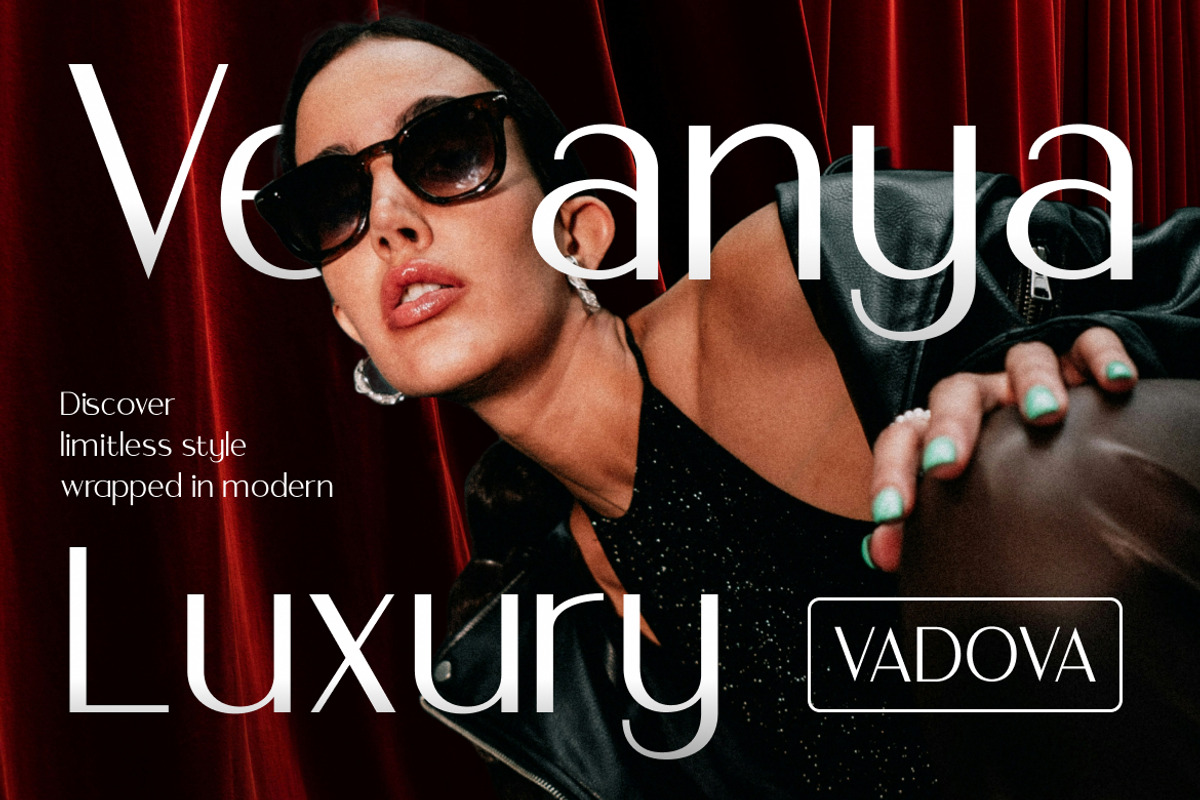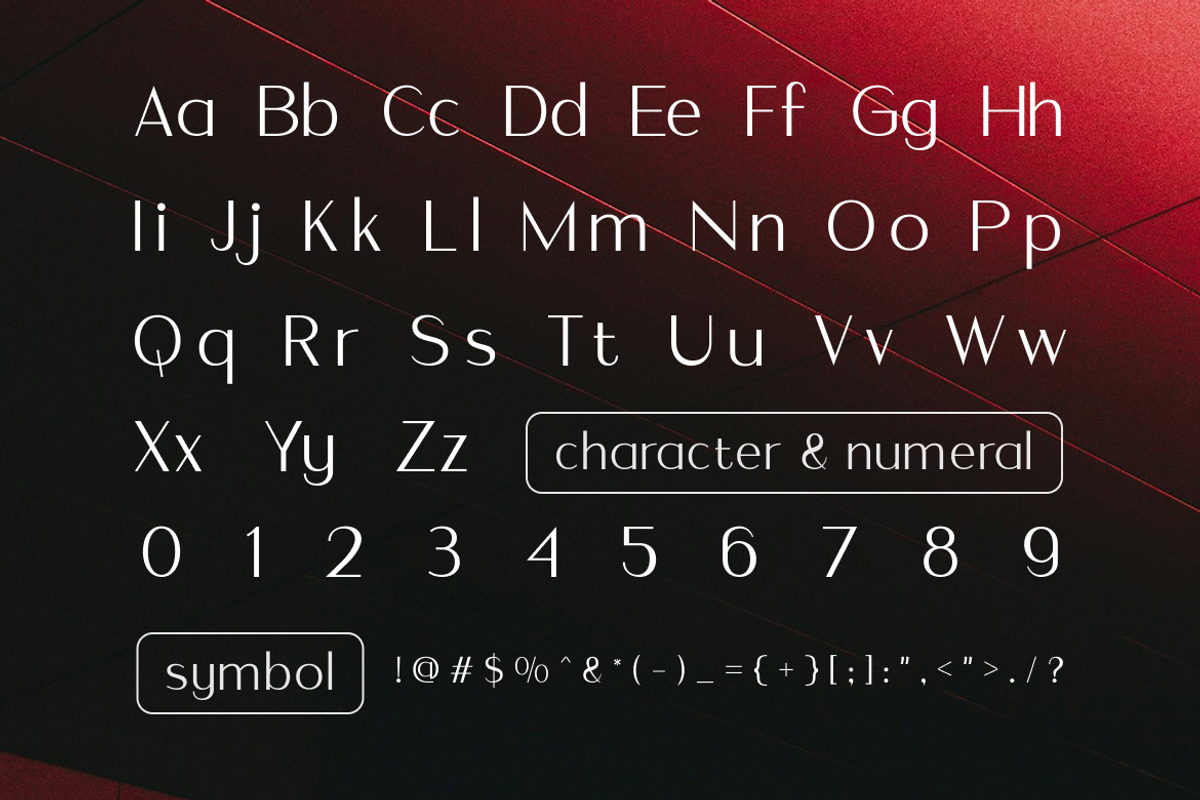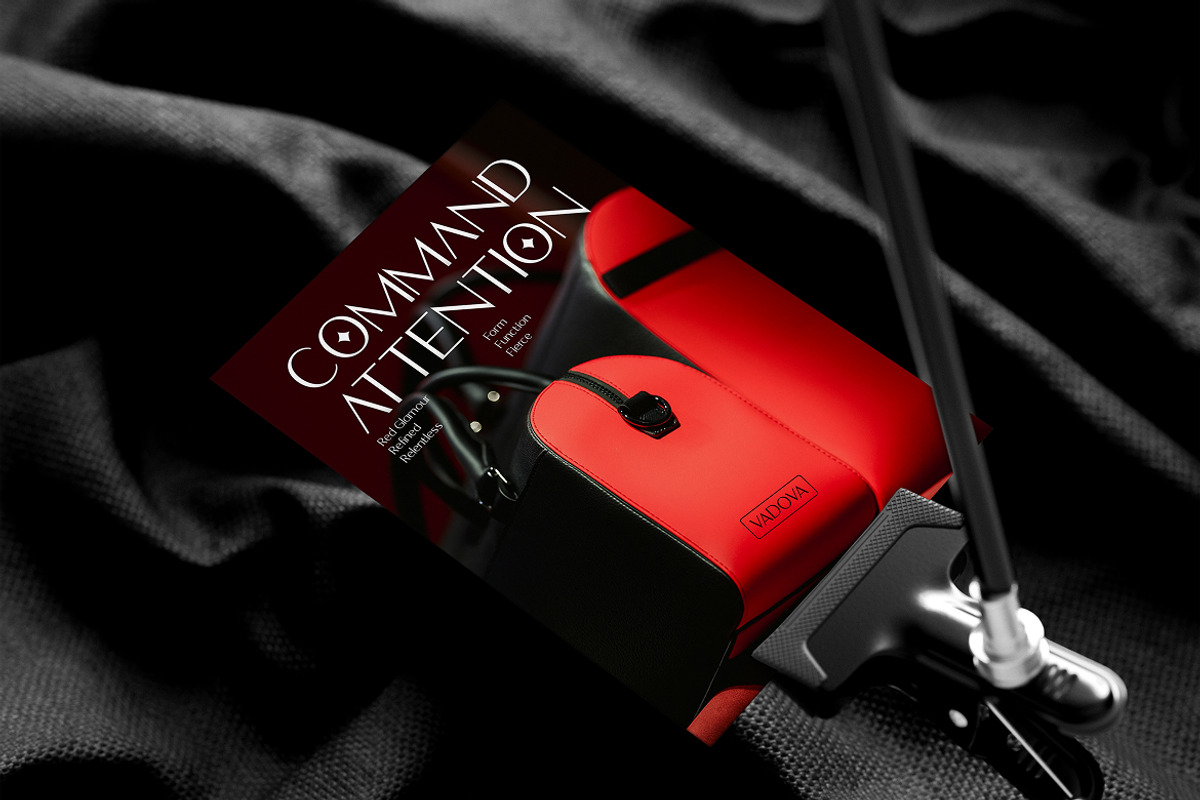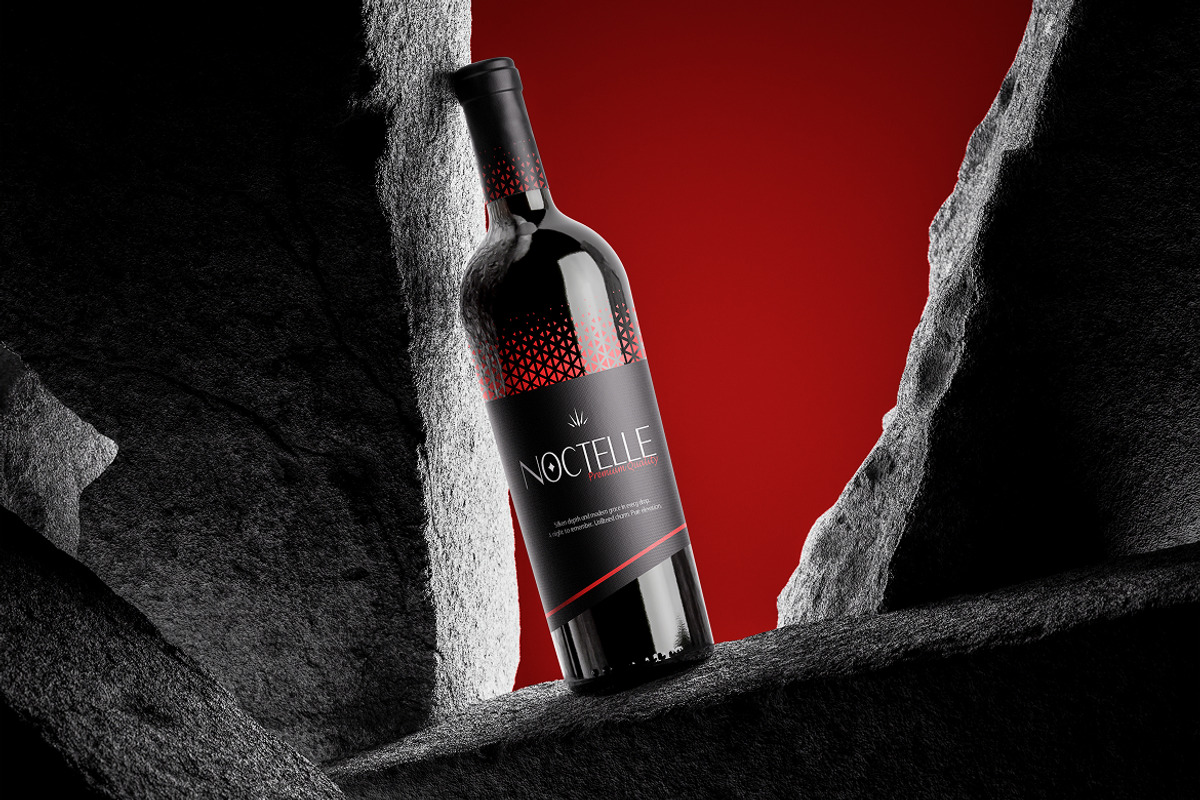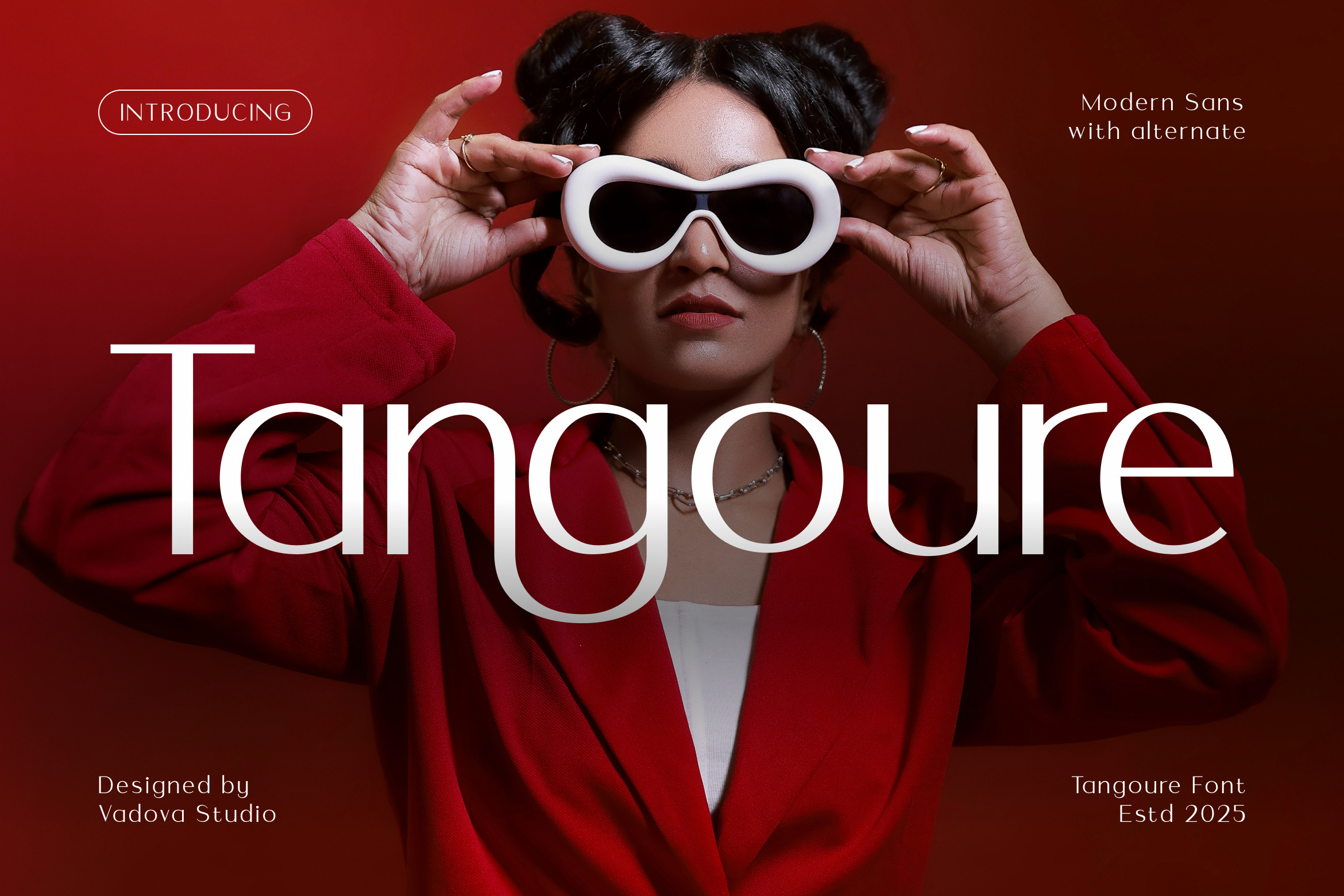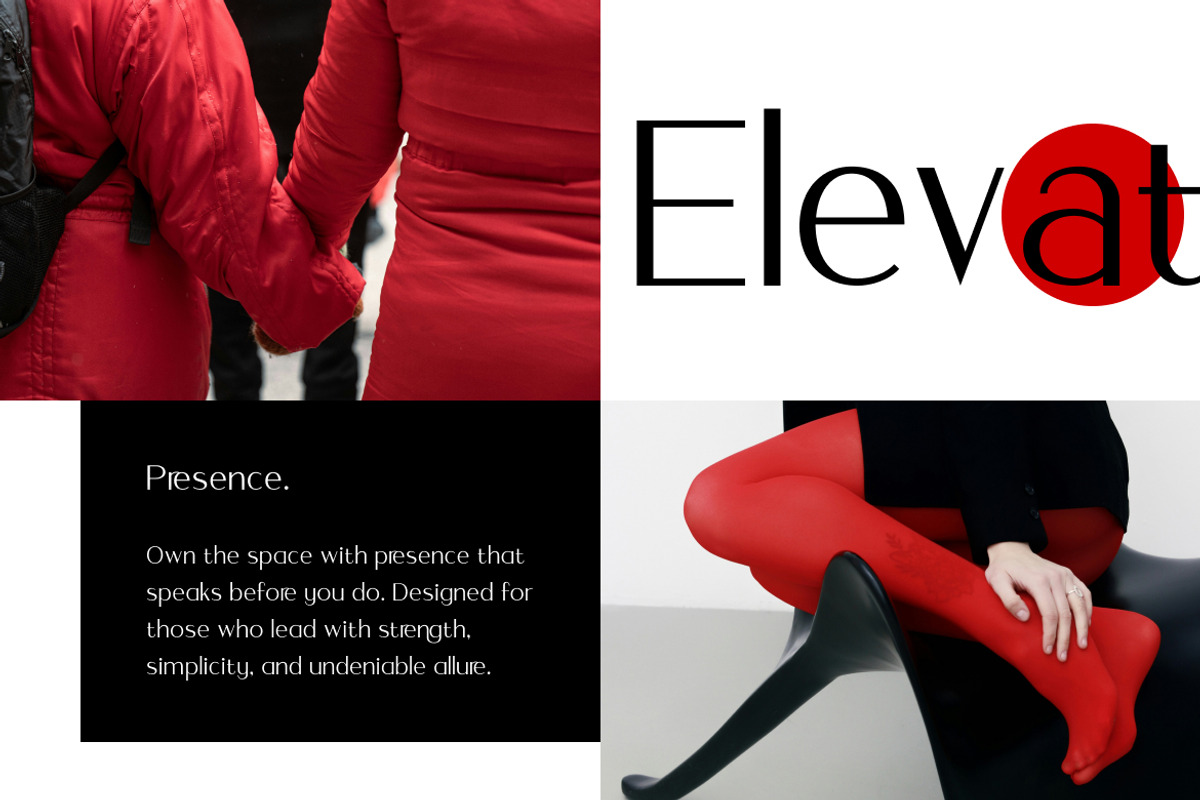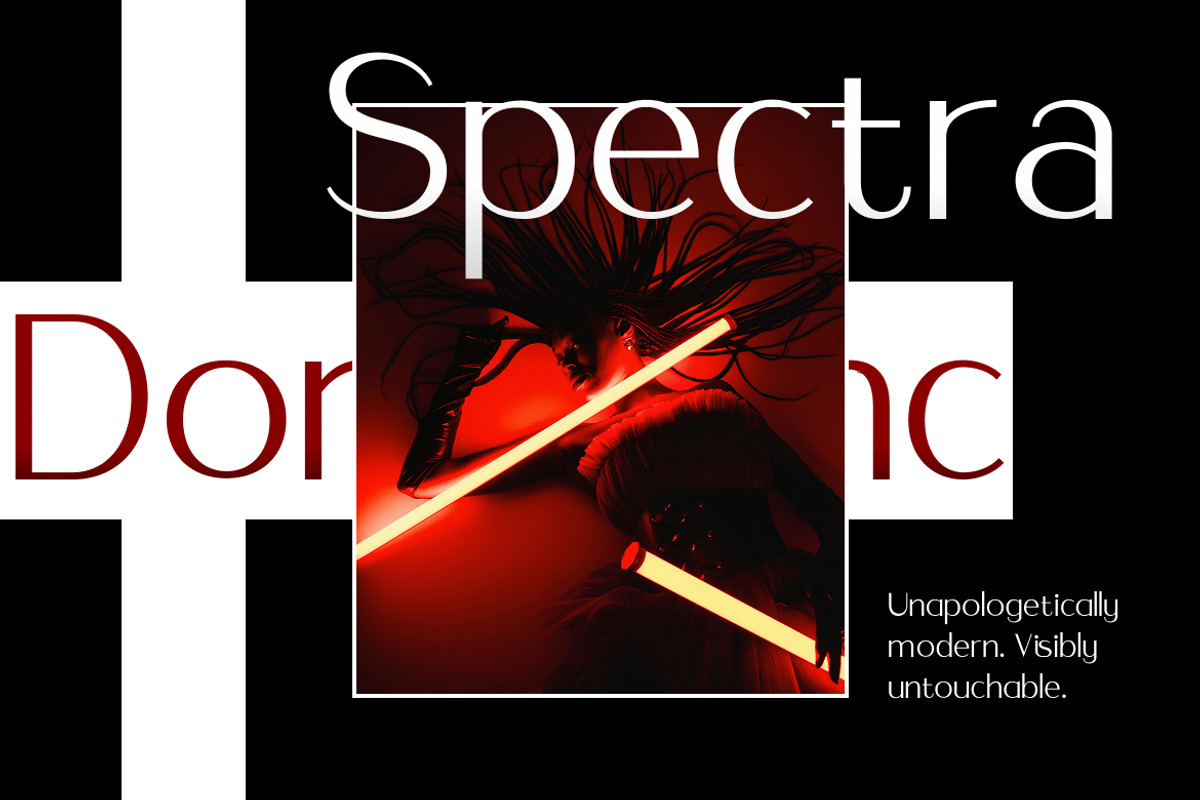
Tangoure Modern Sans Font
Tangoure is a modern sans serif typeface that blends elegance with versatility. With clean strokes, soft curves, and subtle geometric influence, it offers a refined and minimalist aesthetic perfect for editorial design, branding, fashion, and high-end digital applications.
Designed with an eye for clarity and visual harmony, Tangoure comes with alternate characters that introduce a unique personality to your typography while maintaining professional appeal. Whether you're crafting a brand identity, building a stylish portfolio, or designing chic packaging, Tangoure adds a sophisticated touch.
- Elegant modern sans serif with clean geometric structure
- Includes alternate characters for creative flexibility
- Excellent readability in print and digital formats
- Ideal for fashion, branding, editorial, and UI design
- Balanced character spacing for harmonious layouts
- Multilingual support for international design
- Sophisticated yet friendly — perfect for lifestyle branding
- Elegant tone for modern storytelling and premium visuals
Relevance and Use Cases is for long-form text, UI design, minimalist posters, and modern web layouts. Tangoure works exceptionally well in both print and screen environments, offering flexibility for a wide range of projects.
Add modern elegance and versatility to your branding with Tangoure..